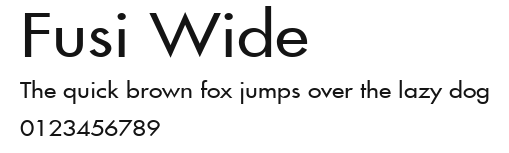
• Font Name: Fusi Wide
Fusi Wide.ttf is a modern, elegant sans-serif font designed for ultimate readability and visual harmony. Perfect for branding, headlines, web design, and print materials.